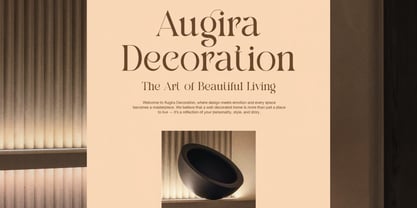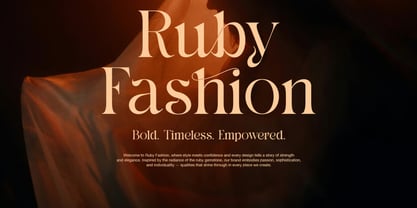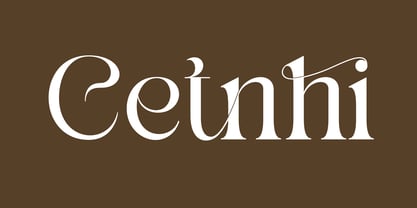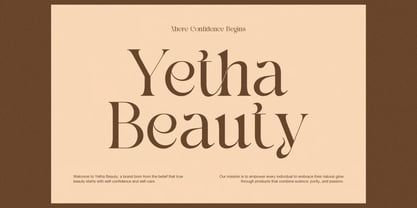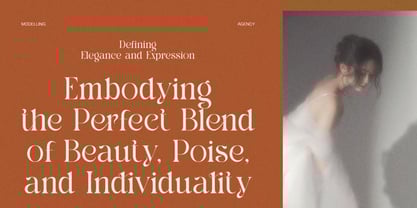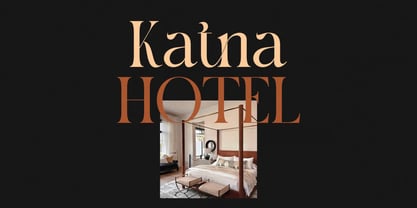
Cetnhi
The Cetnhi Font Family was designed by Hasnat Khan and published by Hasnat Studio. Cetnhi contains 1 styles. More about this family
Cetnhi is a modern, elegant serif typeface that seamlessly blends timeless charm with expressive beauty. Each letter flows with confidence and grace, creating refined and sophisticated typography for designers, artists, and brands that value elegance and personality. With its warm curves and balanced strokes, Cetnhi infuses character and modernity into every visual composition, making it ideal for branding, editorial layouts, invitations, and premium packaging. Crafted with a natural rhythm and artistic flair, Cetnhi delivers harmony across diverse design styles. From beauty branding to wedding stationery, magazine headlines to fashion packaging, this font transforms simple text into striking and graceful statements. It performs beautifully in both print and digital formats, ensuring every project stands out with a luxurious and contemporary aesthetic. ✿ Key Features: Uppercase & Lowercase: Stylish and expressive letterforms for refined typography. Numerals & Punctuation: Complete character set for professional layouts. Ligatures & Alternates: Beautiful stylistic options for added elegance and personality. Multilingual Support: Includes extended characters for global branding. Software Compatibility: Works seamlessly with Adobe and Microsoft programs. ✿ Perfect For: Luxury Branding & Logo Design, Wedding Invitations & Stationery, Magazine Headlines & Editorial Design, Fashion & Beauty Packaging, Creative Portfolios & Artistic Layouts, Digital Media, Posters & Social Graphics. Elevate your designs with Cetnhi—an elegant serif typeface that embodies sophistication, confidence, and modern beauty. This refined font adds warmth, luxury, and artistic grace to every project, transforming ordinary text into unforgettable visual storytelling.